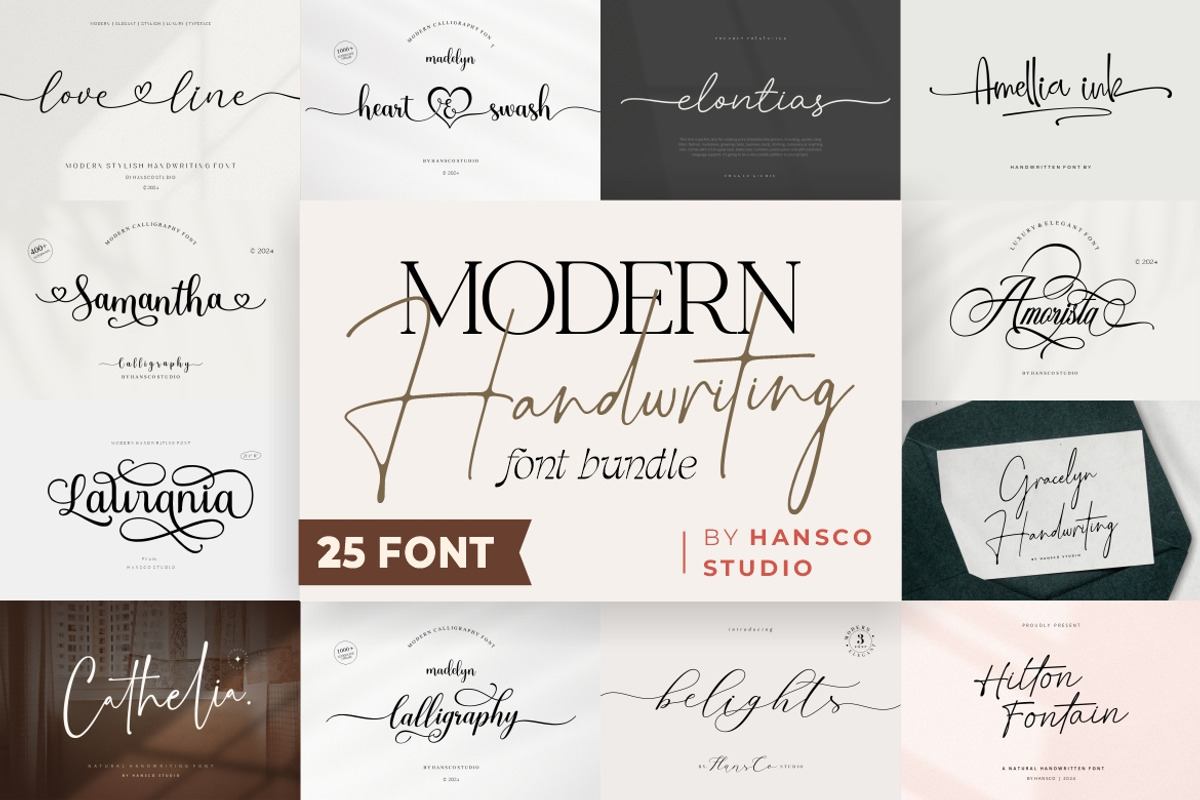
25 Modern Handwriting Font Bundle Free Download
25 Modern Handwriting Font Bundle Free Download is a curated collection of stylish and contemporary script fonts, perfect for branding, invitations, social media posts, and creative projects. Each font in the bundle offers unique charm and character, giving you versatile options for elegant, handwritten aesthetics. Please note that you must purchase this font for commercial use, but it is available as a free download for testing purposes. Add authentic personality to your designs with 25 Modern Handwriting Font Bundle Free Download, and explore the beauty of modern calligraphy in one powerful package.